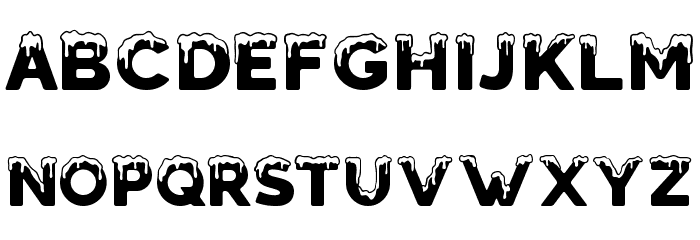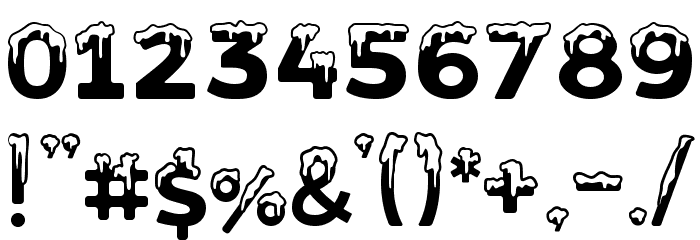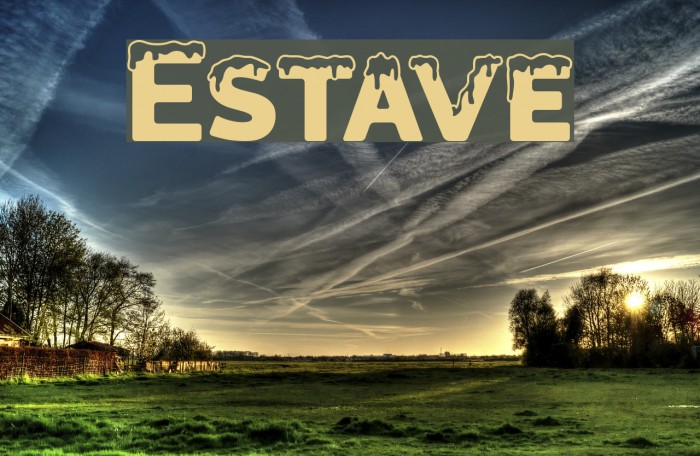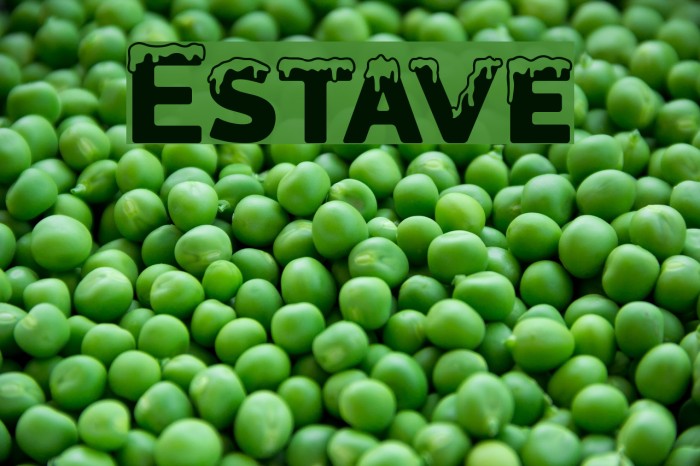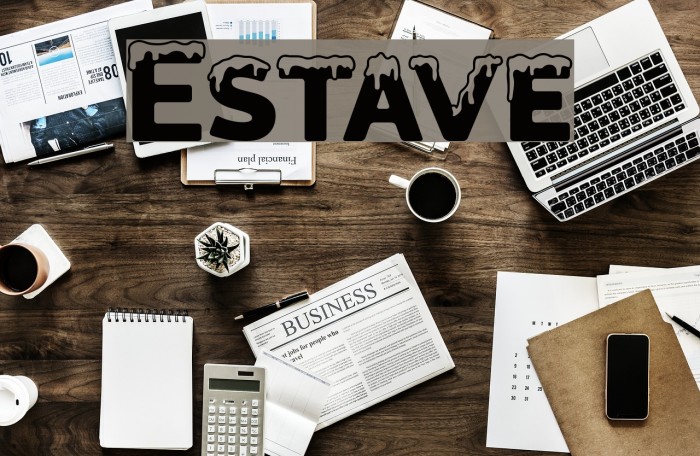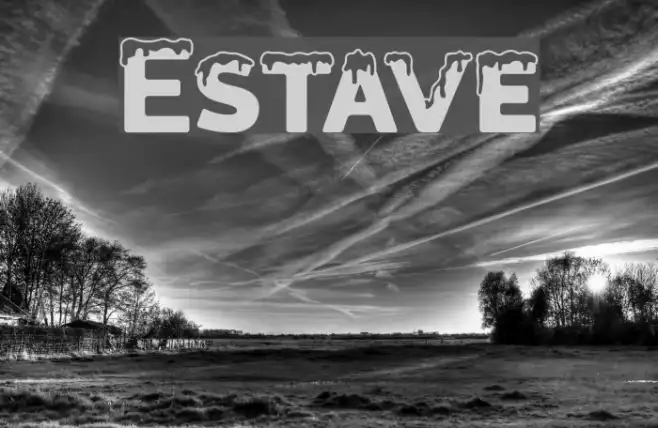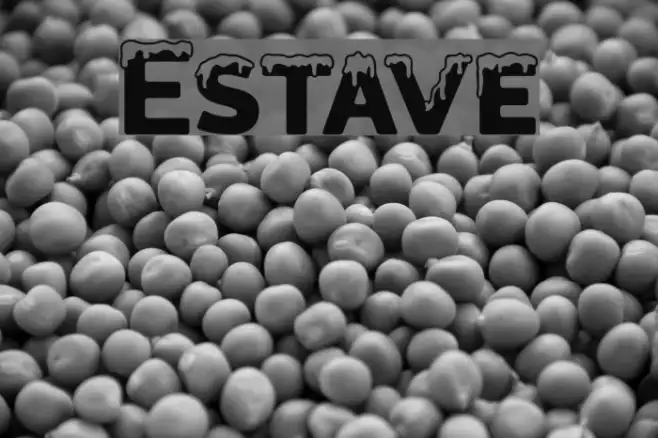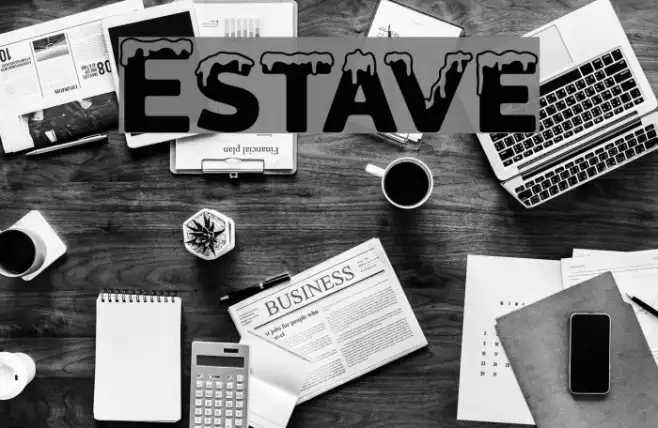
Estave Font
This font features a playful and decorative style with a snowy or icy effect on the top of each character, giving it a winter-themed appearance. The characters are bold and have a strong presence, making them suitable for attention-grabbing designs. The uppercase and lowercase letters maintain a consistent style, with rounded edges and a slightly condensed form. The numbers and special characters follow the same thematic design, ensuring uniformity across all glyphs. This font is ideal for projects that require a fun and festive touch, particularly those related to winter holidays or events.
A bold, decorative font with a snowy effect, perfect for winter-themed designs.
- Proposed Projects: Ideal for holiday cards, winter event posters, festive invitations, and seasonal branding.